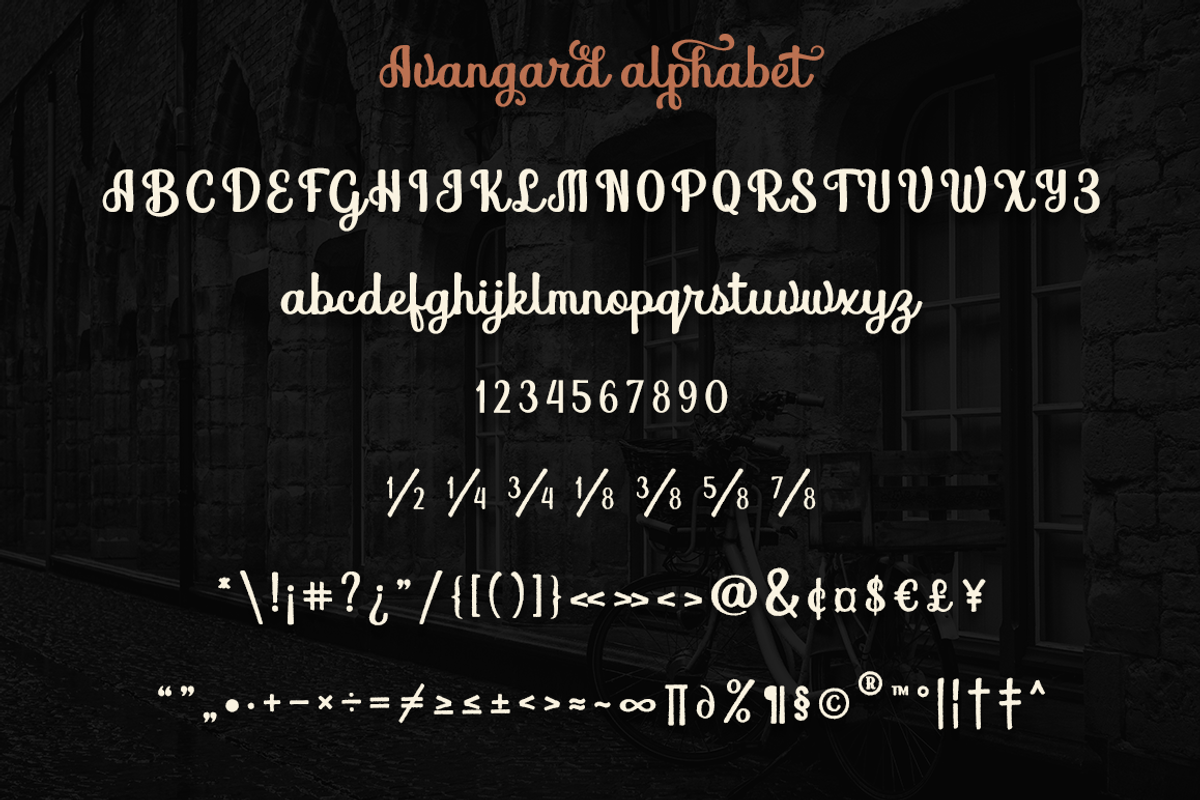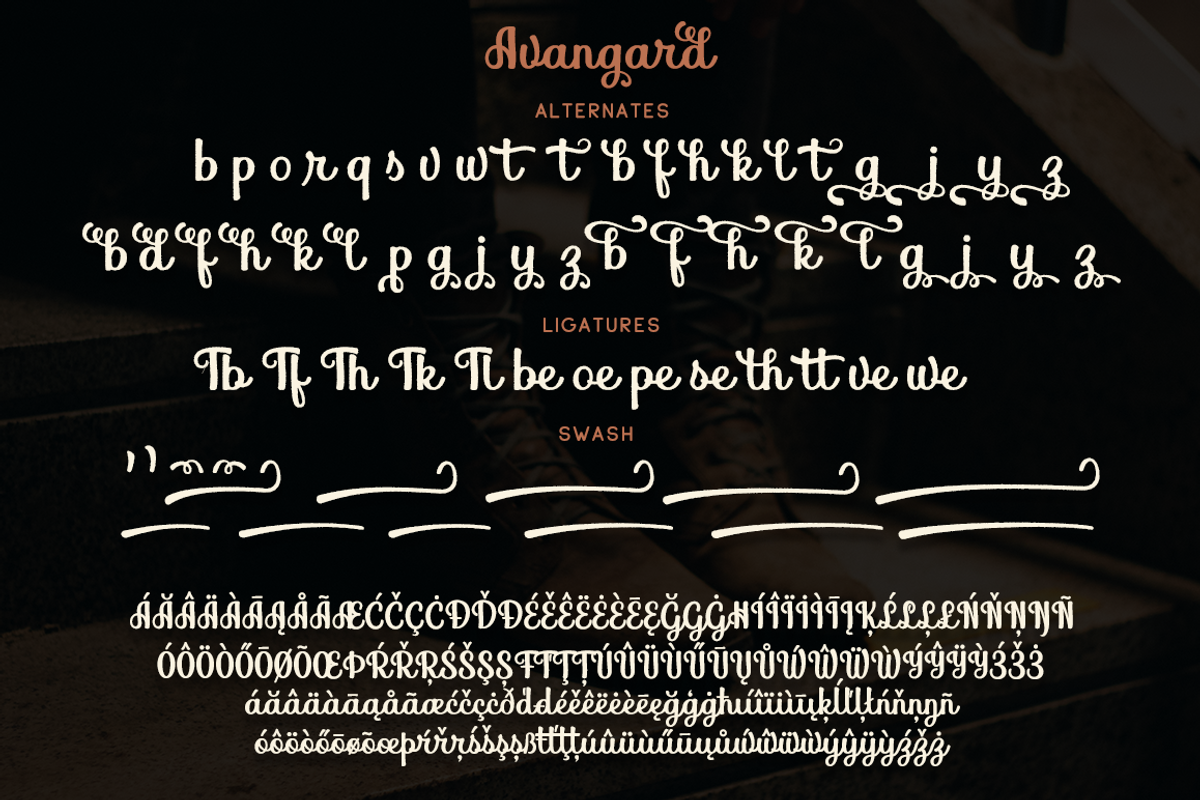
Avangard
Avangard- a new hand drawn script font in 2 style.
These fonts are ideal for branding and will decorate any of your projects. You can also use them to create a logo or use for small businesses, t-shirts, book covers, stationery, marketing, blogs, magazines, and more.
Following international symbols support: ÀÁÂÃÄÅĄÇĆÈÉÊËĘÌÍÎÏÐÑŃŁÒÓÔÕÖØÙÚÛÜŚŠŸÝŹŻŽßàáâãäåçèéêëìíîïðñòóôõöøùúûüýÿąćęłńśšźżž